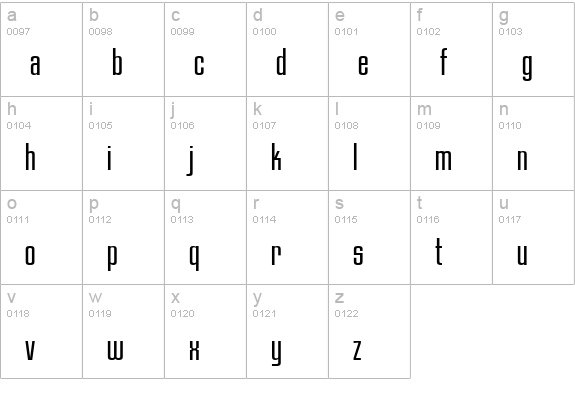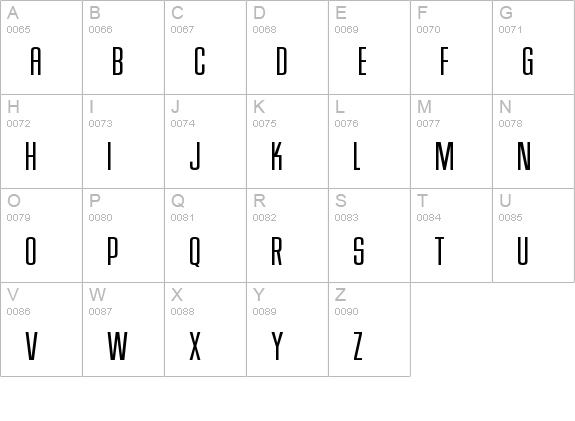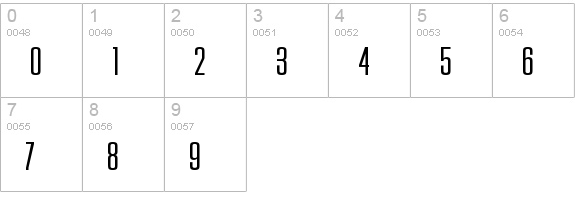
HouseGothic LightOne Font Details
HouseGothic LightOne is a stunning and elegant font that exudes sophistication and modernity. Its sleek lines and delicate curves make it perfect for a wide range of design projects, from branding to editorial design. This font strikes the perfect balance between classic and contemporary, making it a versatile choice for any creative endeavor. What sets HouseGothic LightOne apart is not only its impeccable design but also the fact that it is available for free download at FontsMarket.com. Yes, you read that right - this exquisite font can be yours at no cost, allowing you to elevate your designs without breaking the bank. Whether you're working on a logo, a website, or a print publication, HouseGothic LightOne will add a touch of sophistication and flair to your project. Download it today and see for yourself why this font is a must-have for any designer looking to make a statement.